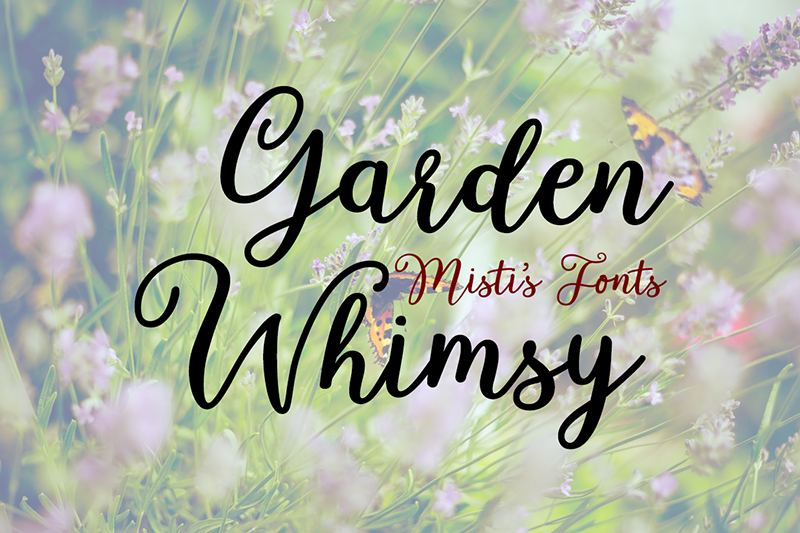
Garden Whimsy is a playful, bouncy cursive font full of charm and character. Perfect for invitations, logos, and creative projects, its flowing letters add a whimsical touch to any design. Let your words bloom with Garden Whimsy! Terms Of Use and Commercial Licensing: https://mistifonts.com/garden-whimsy/ |